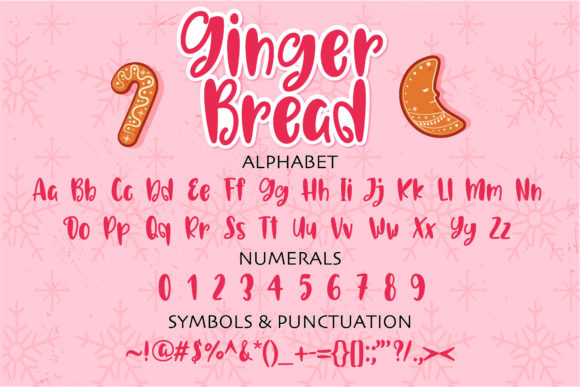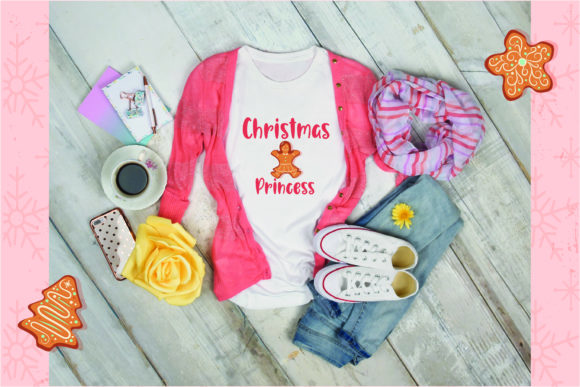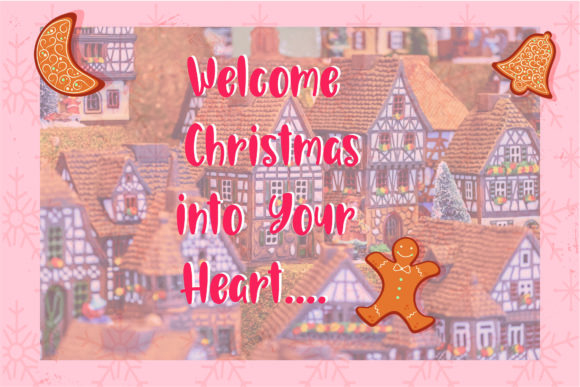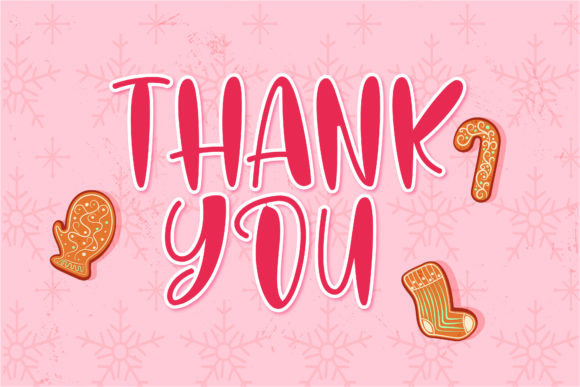
GingerBread Font
About GingerBread Font
GingerBread is a cool, relaxed, and quirky handwritten font that brings a unique and playful vibe to your designs. Whether you’re working on greeting cards, branding materials, social media graphics, or any other creative project, GingerBread is a wonderful asset to have in your font library. Its casual and laid-back style adds a touch of personality and charm, making your creations stand out. With its distinct character and hand-drawn feel, GingerBread injects a sense of fun and creativity into your designs. Embrace this font confidently and let it enhance any topic or theme, bringing a cool and quirky element to your creations. No matter the context, GingerBread has the potential to add an extra layer of visual interest and make your designs truly unique.